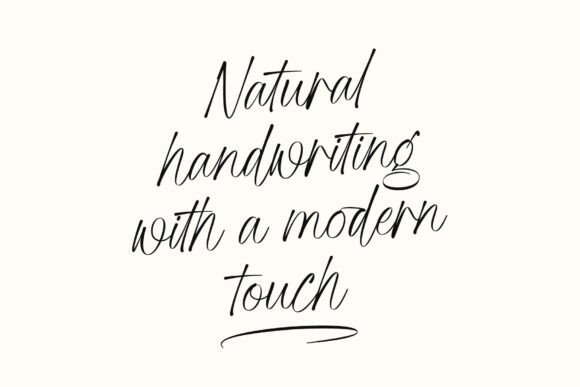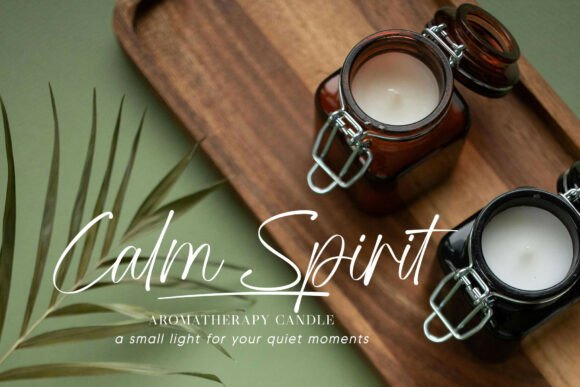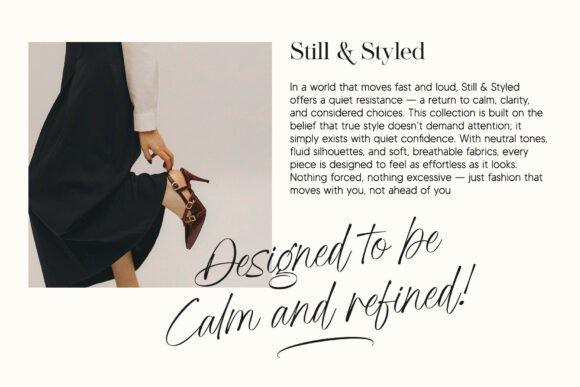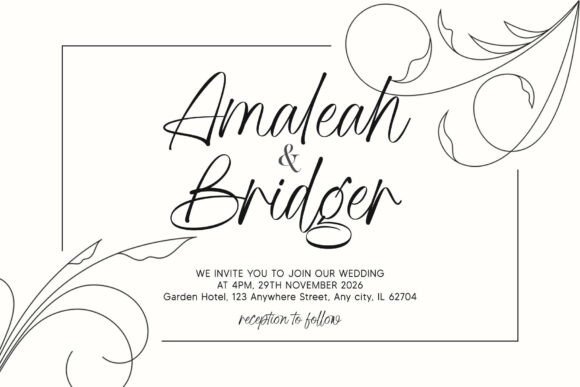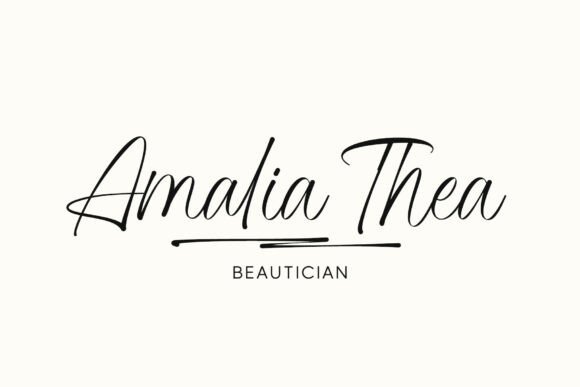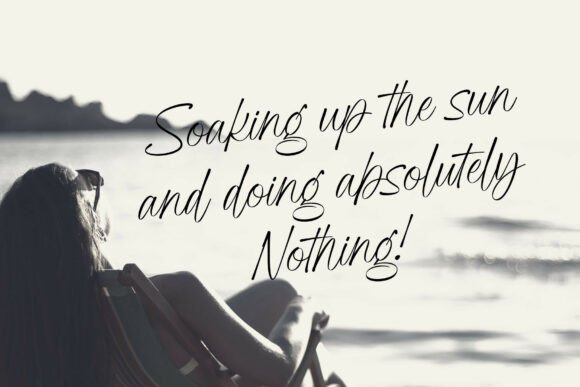
Introducing Adore Writing Font: Elevate Your Designs with Elegance and Modernity
In the world of typography, a font can make or break a design. For designers, crafters, and anyone looking to add a personal touch to their projects, finding the right font is crucial. This is where Adore Writing Font comes into play—a handwritten font that combines elegance and modernity, making it perfect for a wide array of design needs. In this article, we’ll dive deep into the features of Adore Writing Font and explore how it can enhance your designs.
The Essence of Adore Writing Font
Adore Writing Font is a beautifully crafted handwritten font, designed to bring an elegant and modern feel to your designs. Its smooth strokes and flowing letterforms provide a clean yet naturally handwritten aesthetic. This balance between elegance and naturalness makes Adore Writing Font incredibly versatile, suitable for various design projects ranging from professional branding to personal invitations.
Key Features of Adore Writing Font
- Elegant and Modern Style: Adore Writing Font boasts an elegant and modern style that can instantly elevate the look of your designs.
- Smooth Strokes and Flowing Letterforms: The font features smooth strokes and flowing letterforms, providing a clean and naturally handwritten feel.
- Ligatures and Swashes: To add more creativity and variety to your text, Adore Writing Font includes ligatures and swashes, making it perfect for projects that require a bit of flair.
- Versatility: Whether you’re working on logos, wedding invitations, product branding, social media quotes, or packaging, Adore Writing Font is up to the task.
Applications of Adore Writing Font
The versatility of Adore Writing Font makes it an excellent choice for a multitude of design projects. Here are some of the areas where this font truly shines:
- Logos: Create a memorable brand logo with a personal touch. The elegant and modern style of Adore Writing Font can help your brand stand out.
- Wedding Invitations: Add a touch of elegance and romance to your wedding invitations. The font’s flowing letterforms and smooth strokes make it perfect for formal yet personal events.
- Product Branding: Enhance your product’s packaging and marketing materials with a font that exudes quality and sophistication.
- Social Media Quotes: Make your social media posts stand out with beautifully designed quotes. Adore Writing Font’s modern style will catch the eye of your followers.
- Packaging: Whether it’s a product label or a brand package, Adore Writing Font can add a touch of elegance and professionalism.
Tips for Using Adore Writing Font
To make the most of Adore Writing Font, consider the following tips:
- Mix and Match: Don’t be afraid to experiment with different sizes, colors, and styles to find the perfect combination for your design.
- Pair with Other Fonts: Adore Writing Font works well with both serif and sans-serif fonts. Try pairing it with complementary fonts to create visual interest.
- Utilize Ligatures and Swashes: Take advantage of the font’s ligatures and swashes to add a creative touch to your text.
Adore Writing Font is more than just a font; it’s a design tool that can elevate your projects to new heights. Its elegant and modern style, combined with its versatility and features like ligatures and swashes, make it an excellent choice for designers and crafters alike. Whether you’re looking to create stunning logos, elegant wedding invitations, or captivating social media quotes, Adore Writing Font is up to the task. So, why settle for ordinary when you can create something truly extraordinary with Adore Writing Font?
Embrace the elegance and modernity of Adore Writing Font in your next design project. With its smooth strokes, flowing letterforms, and extensive features, it’s sure to become your go-to font for all your design needs.